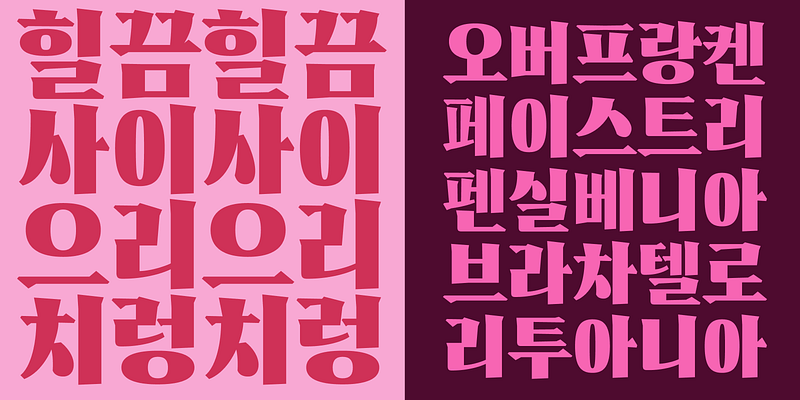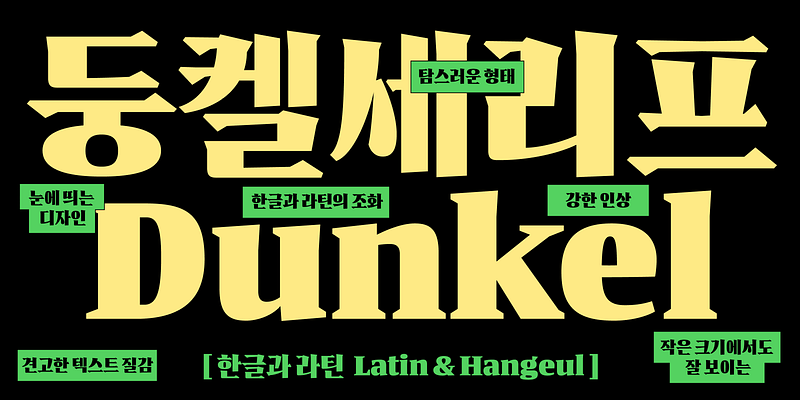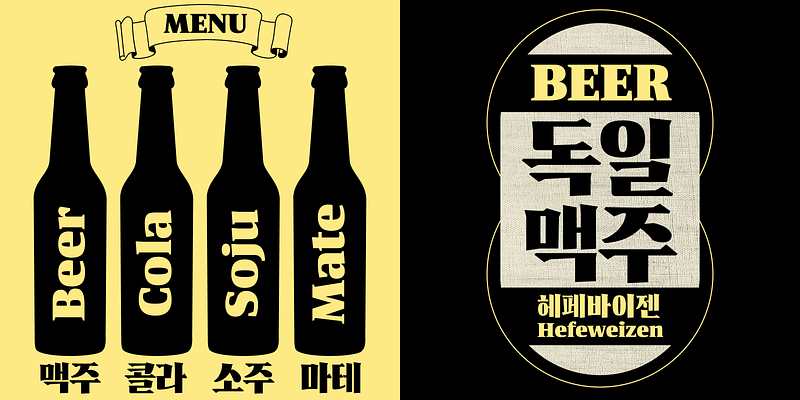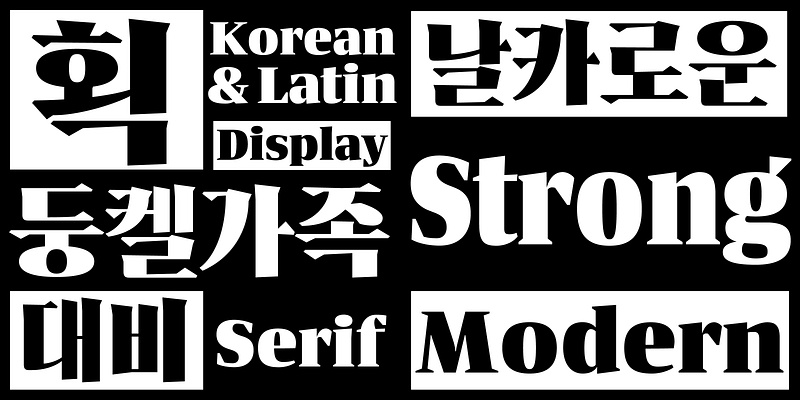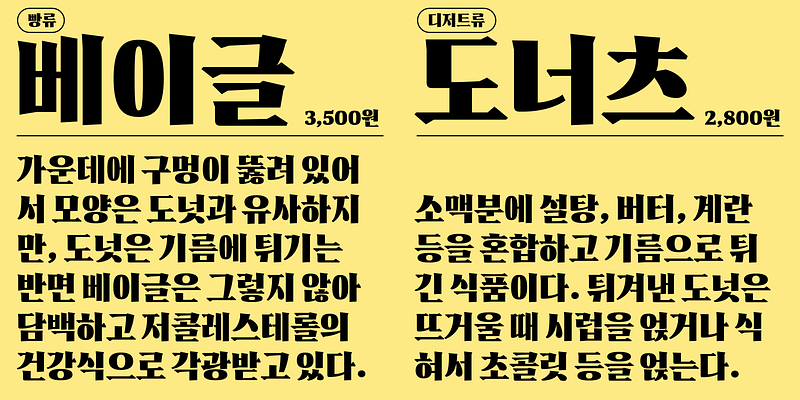
Dunkelserif boasts a captivating design distinguished by its bold strokes and high contrast. Its robust horizontal lines ensure exceptional visibility even at smaller sizes, setting it apart from other fonts in its genre and providing a consistently solid text texture. The Latin version of Dunkelserif was initiated by Minjoo Ham and further perfected through the meticulous refinements of Mark Frömberg. This collaborative effort has resulted in a font that exudes sophistication and excellence.
Whether you’re creating posters, books, thumbnail titles, or package designs, Dunkelserif comes highly recommended. Its versatility and visual impact make it an ideal choice for a wide range of design projects.
The Dunkel Serif Display is an eye-catching font with a design that features greater stroke contrast than the regular ‘Dunkel Serif.’ It exhibits sharp, distinct stroke shapes, which contribute to its strong and commanding appearance, thanks to its generous counter size. It is advisable to use this font in larger sizes to fully appreciate its details.
Minjoo Ham
Minjoo Ham is an independent type designer and a half of Hypertype foundry. She completed the TypeMedia master course at the Royal Academy of Art in The Hague, Netherlands, concentrating on Latin and Hangul double-script, since then she is producing multi-script font families for multi script font project.